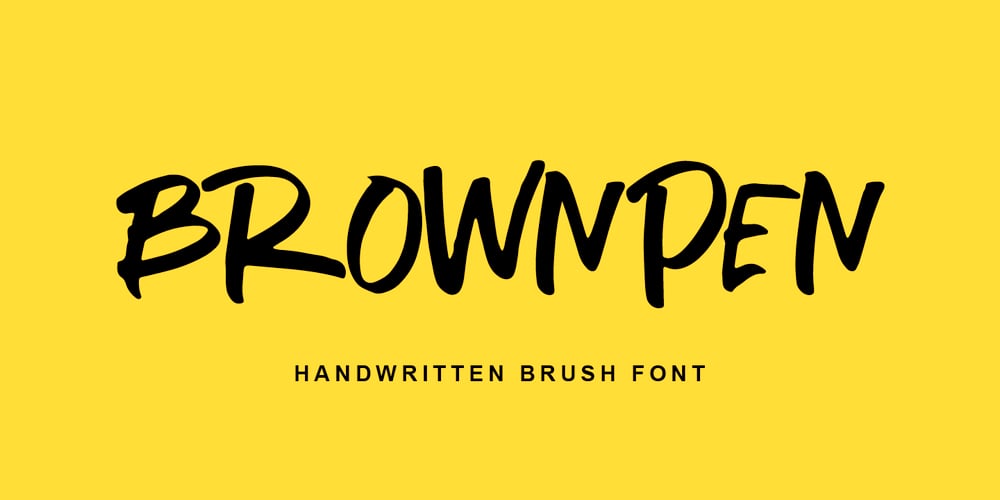
Brownpen Font Family was designed by Rizal Aiyub and published by Fontysia. Brownpen contains 1 styles and family package options. Brownpen handwriting brush typeface that is suitable for design projects ; logo, branding, poster, quotes, and any other designs. Branding is unique, so natural and catchy.